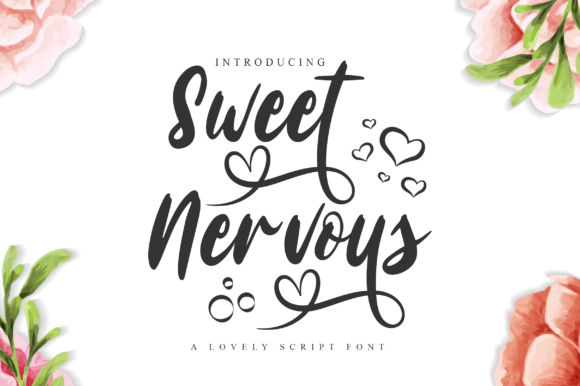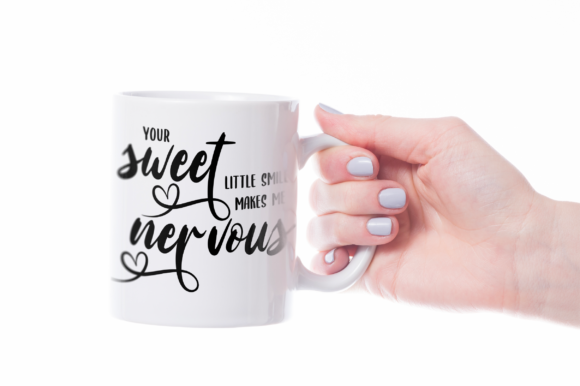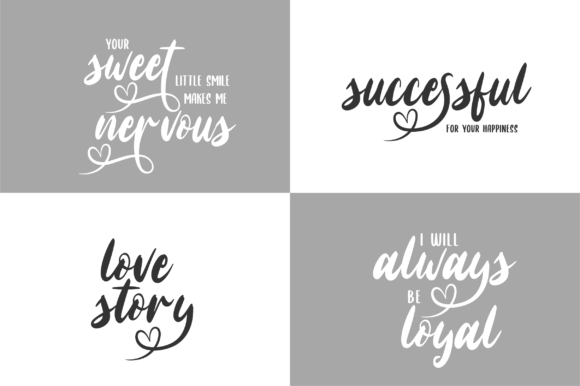
Sweet Nervous Font
Sweet Nervous is a lovely and flowing handwritten font, designed to lighten up a wide variety of creative ideas. It looks spectacular on wedding invitations, thank you cards, quotes, greeting cards, logos, business cards and every other design which needs a handwritten touch.